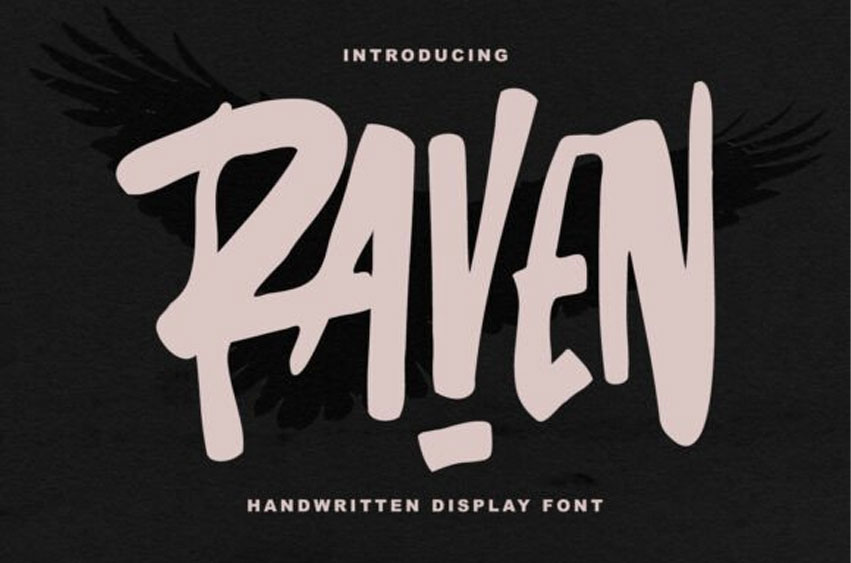
Raven Font Handwritten Display Font is a bold and expressive typeface that brings raw energy and artistic flair to every design it touches. Its sweeping strokes and rugged edges create the impression of hand-painted letters, alive with movement and personality, while its organic flow evokes the mysterious and dramatic spirit of its namesake.
Raven font is both edgy and versatile, making it perfect for posters, album covers, streetwear branding, book titles, social media graphics, and any project that demands a striking voice filled with attitude. The handcrafted quality of its forms ensures authenticity and uniqueness, giving designers a tool that not only communicates words but also conveys mood, emotion, and atmosphere with a powerful impact.